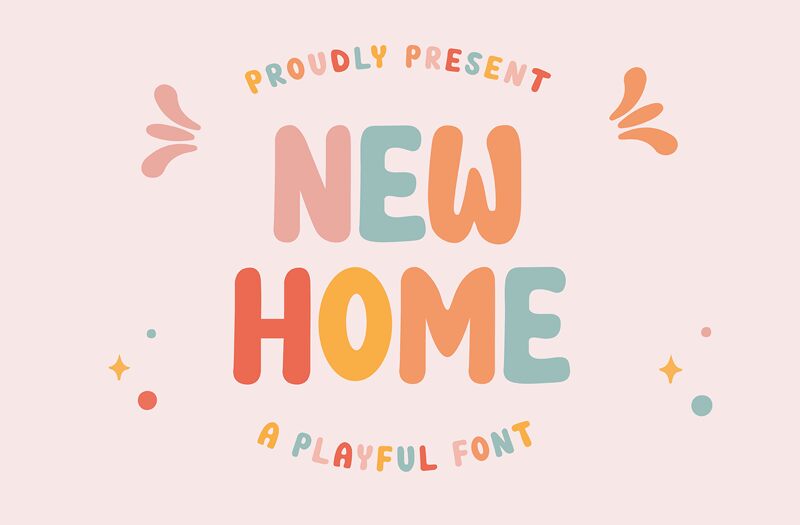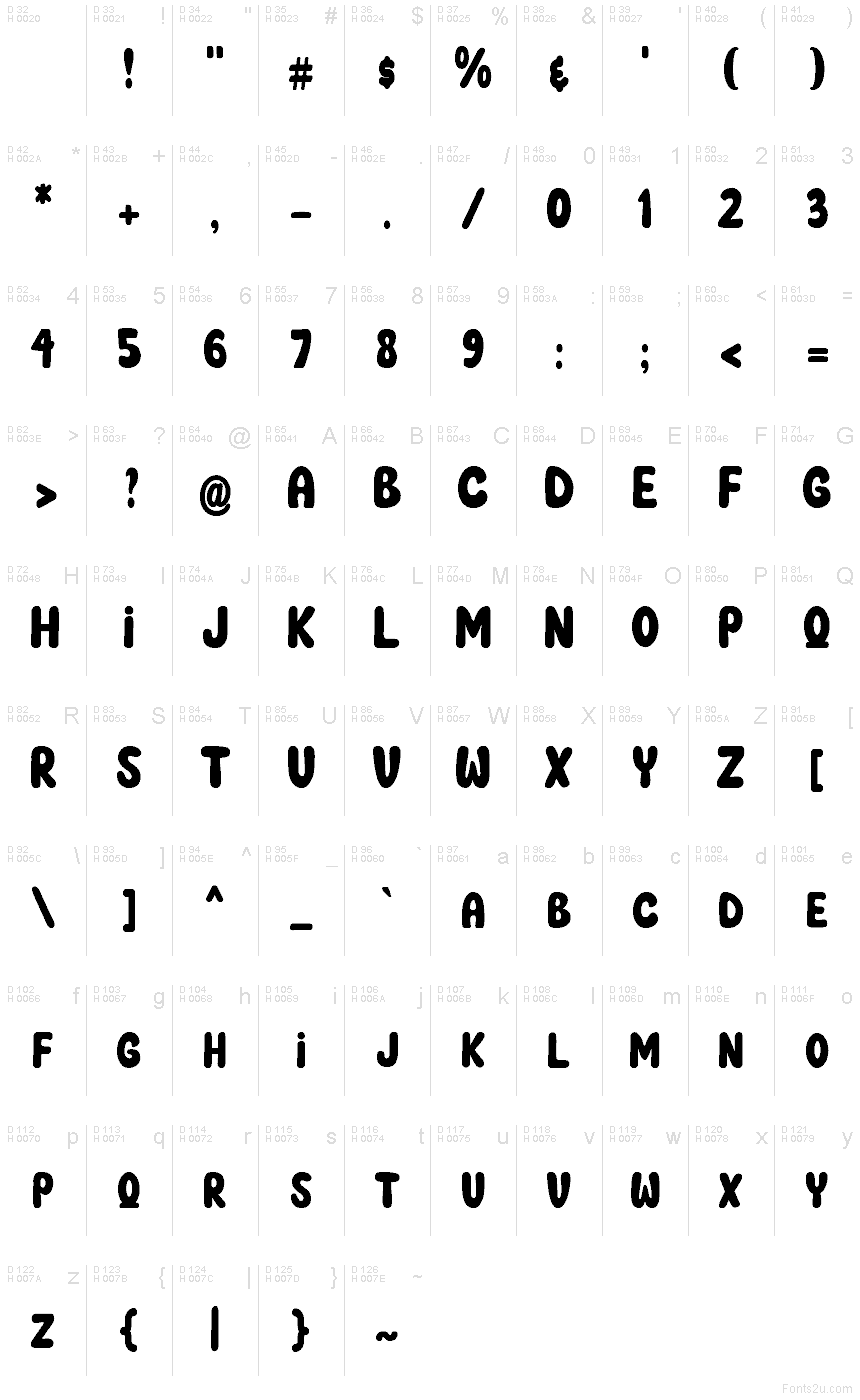
New Home Display
New Home Display font by Faras Dina is a free cartoon display typeface. Its letters feel hand-shaped and a little squishy, with rounded blobs and cozy, inky curves that pack together like soft pebbles. The rhythm is bouncy without getting chaotic, so headlines read loud and friendly rather than messy, and the chunky strokes hold up even on busy backgrounds.
Using New Home Display, you’ll get cheerful energy for kids’ branding, toy packaging, party invitations, YouTube thumbnails, game titles, and classroom printables. This free font shines when set big and bold; keep body copy in a simple sans to balance the playfulness. Try generous line spacing and bright color blocks to make its bubbly forms pop.